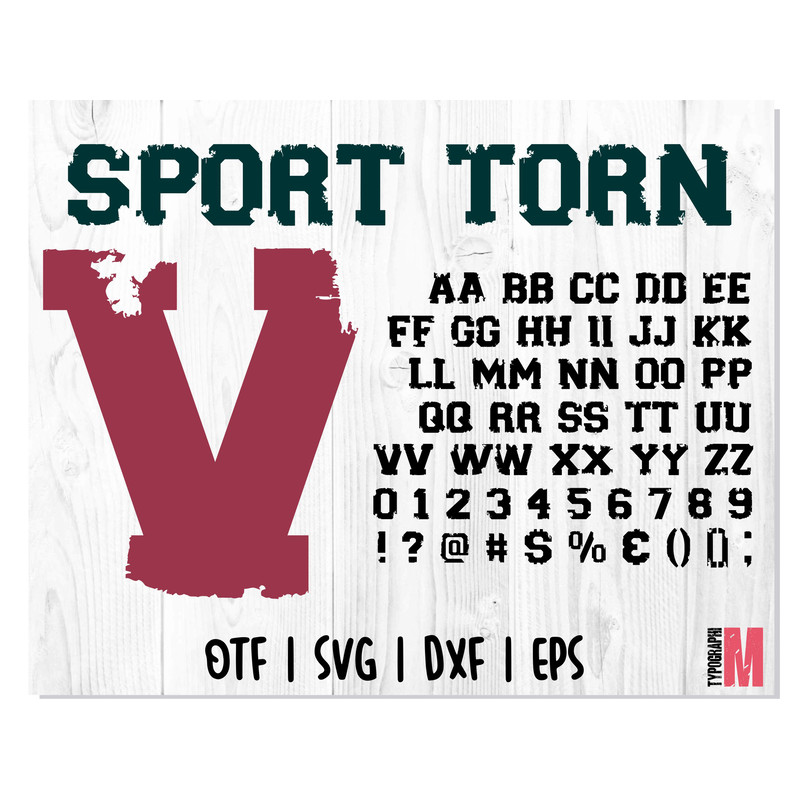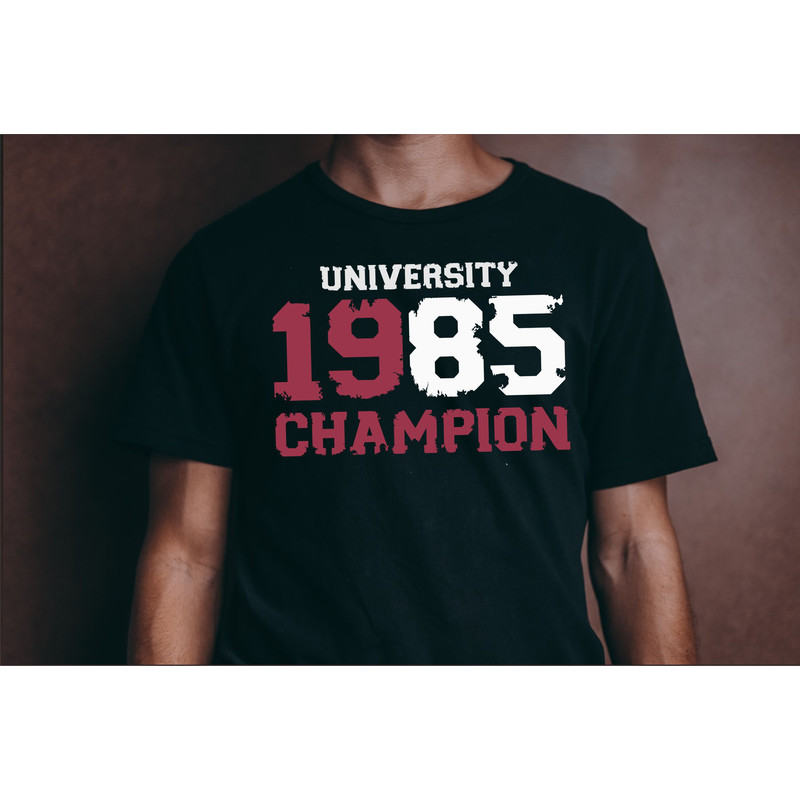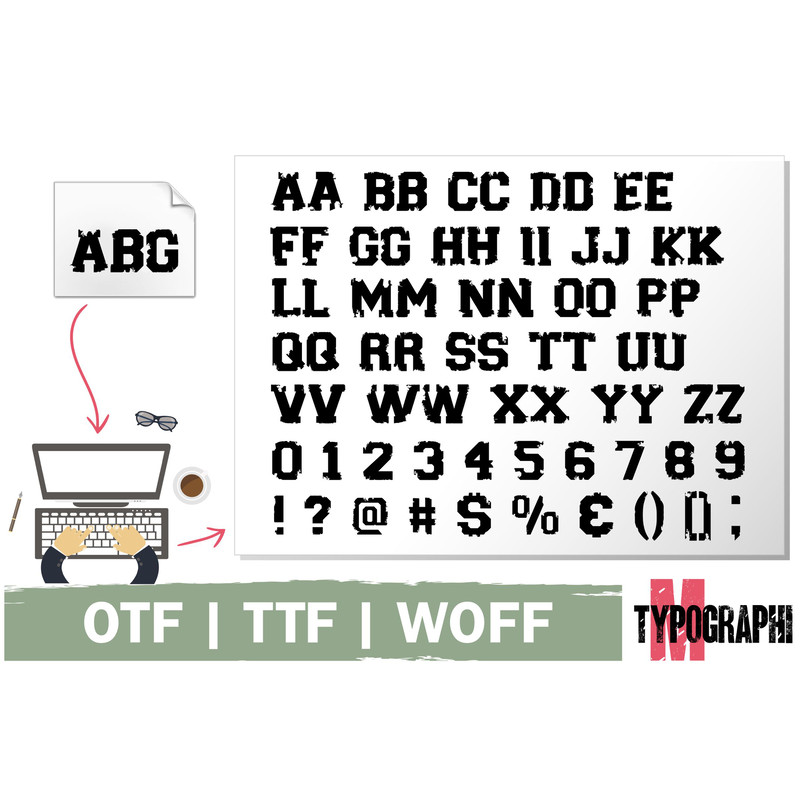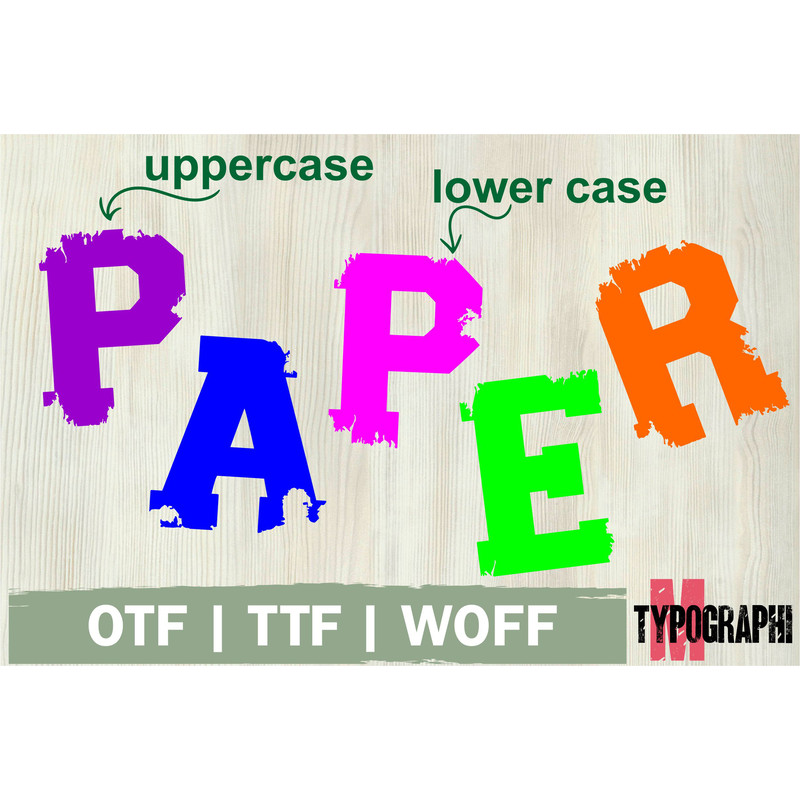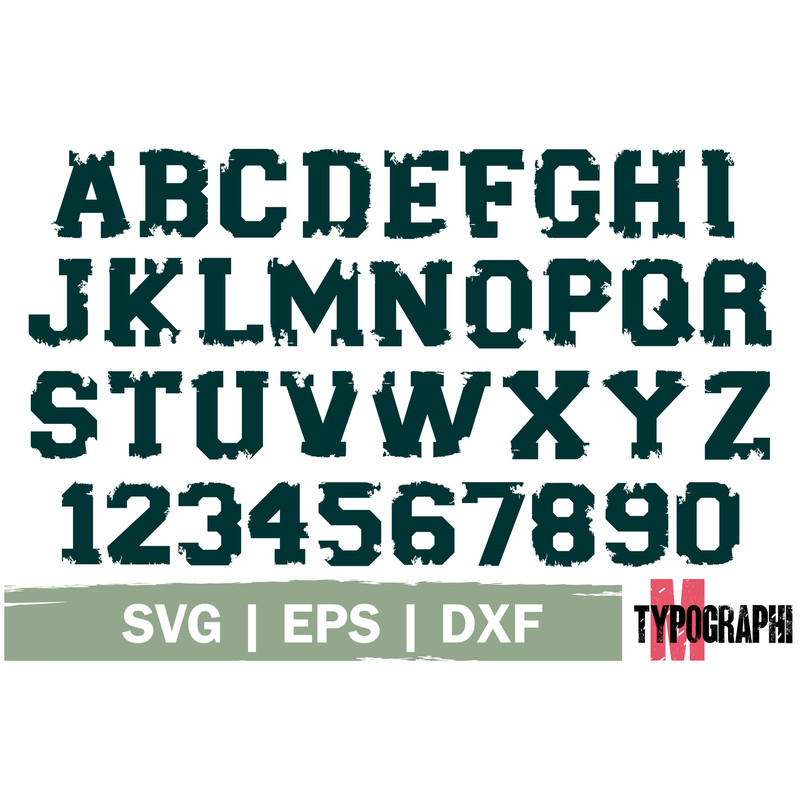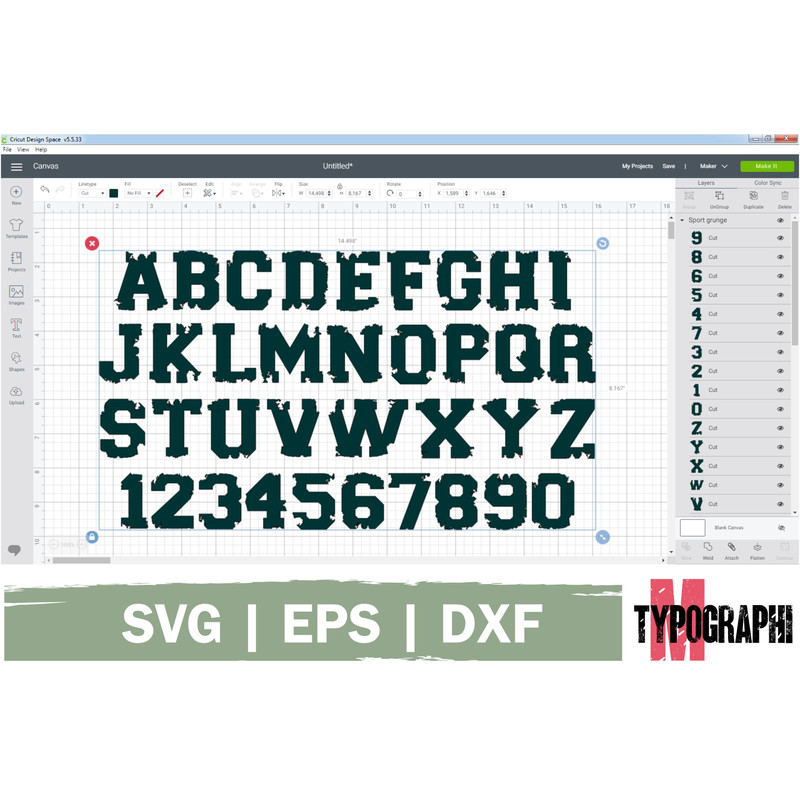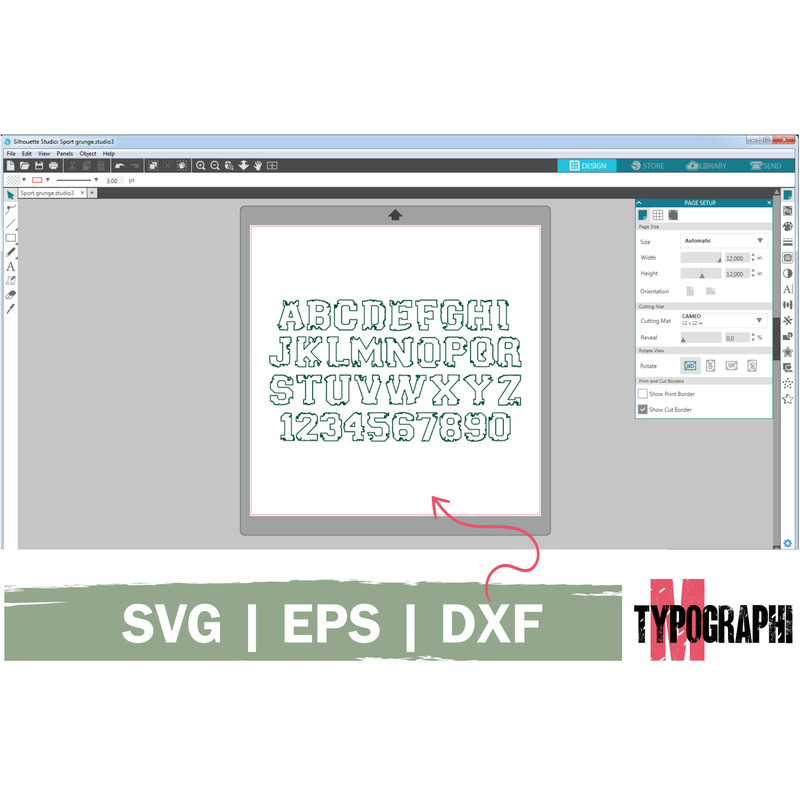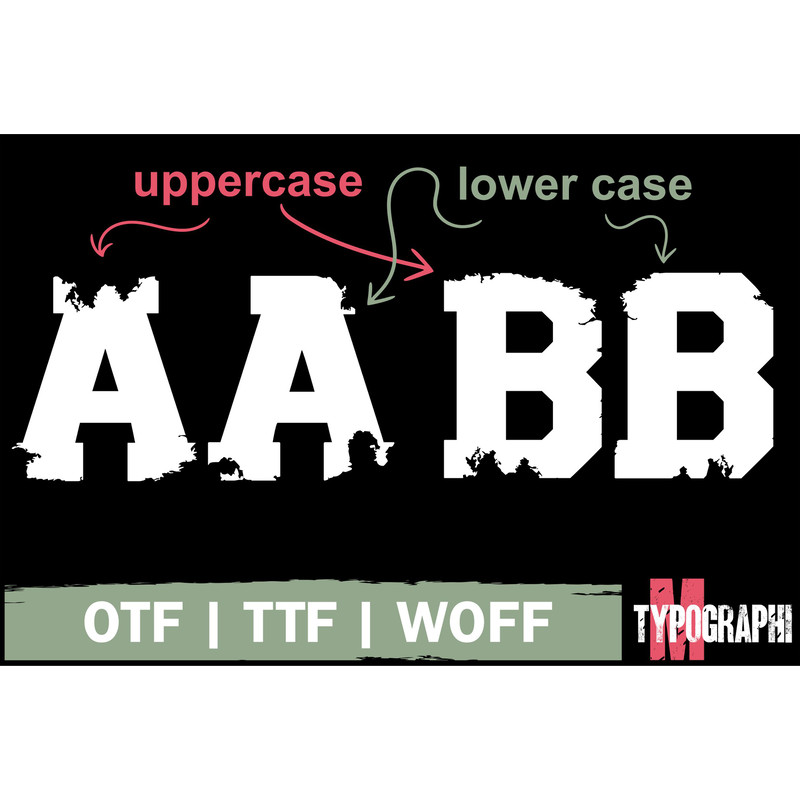
Sport Torn Edge College Distressed font OTF | College font SVG, Varsity font letters numbers SVG, Varsity alphabet SVG
College Grunge is a spectacular decorative font. Make you next designs stand out with this amazing font.
It will be perfect for college and school projects, t-shirt designs, posters and much more.